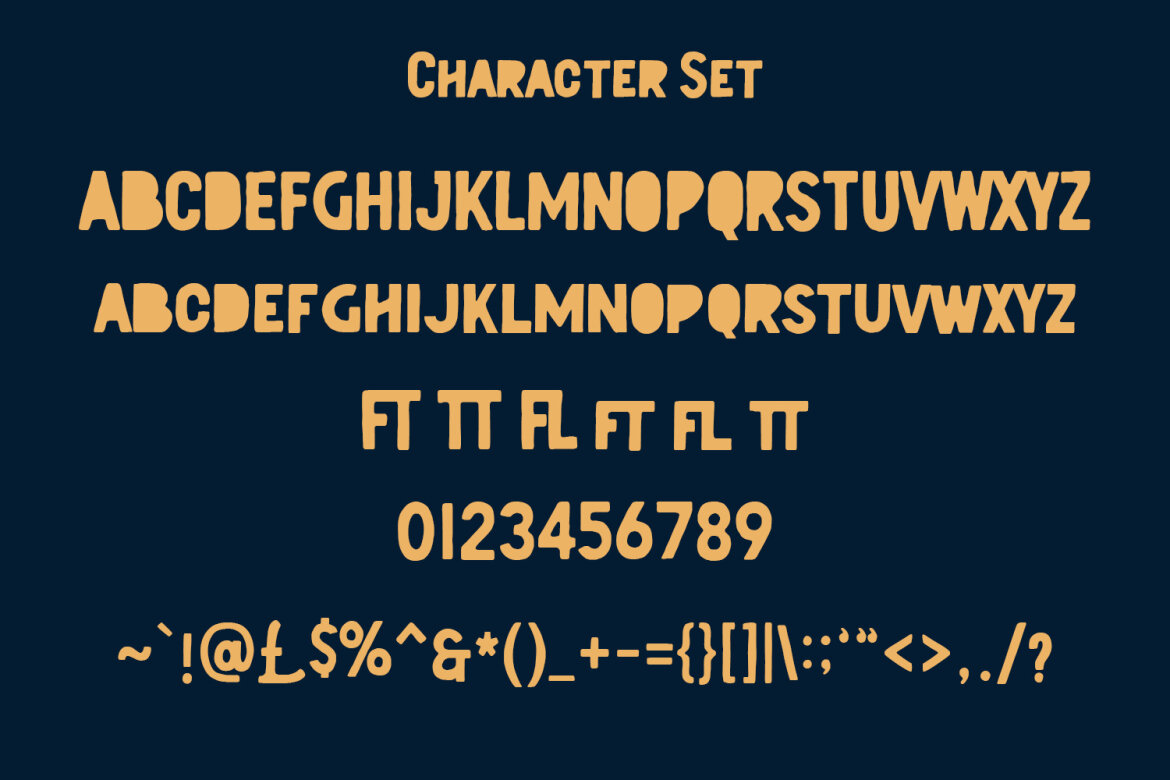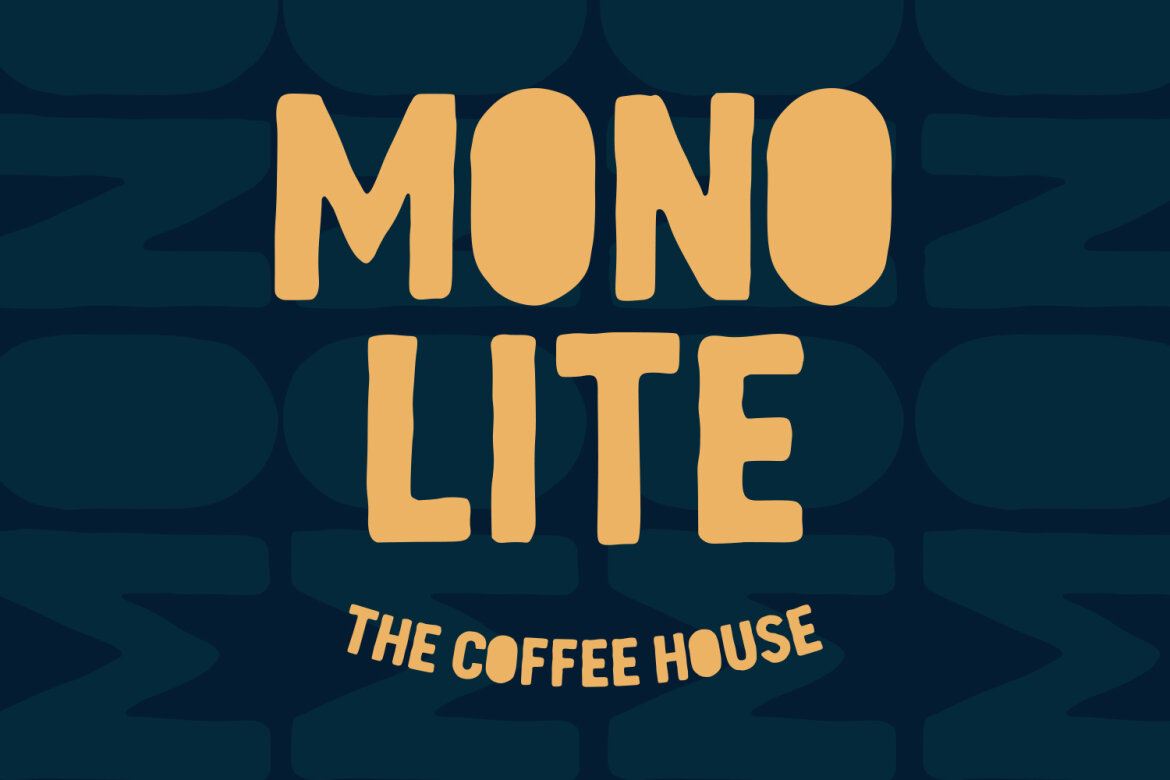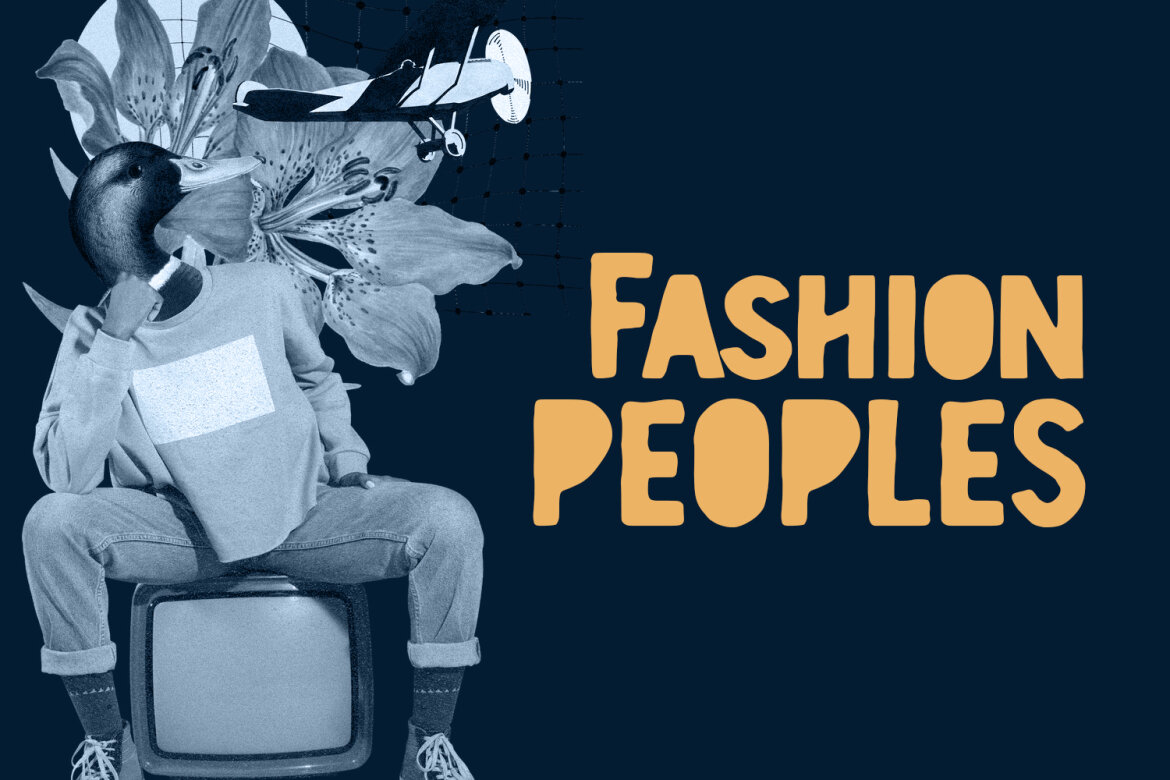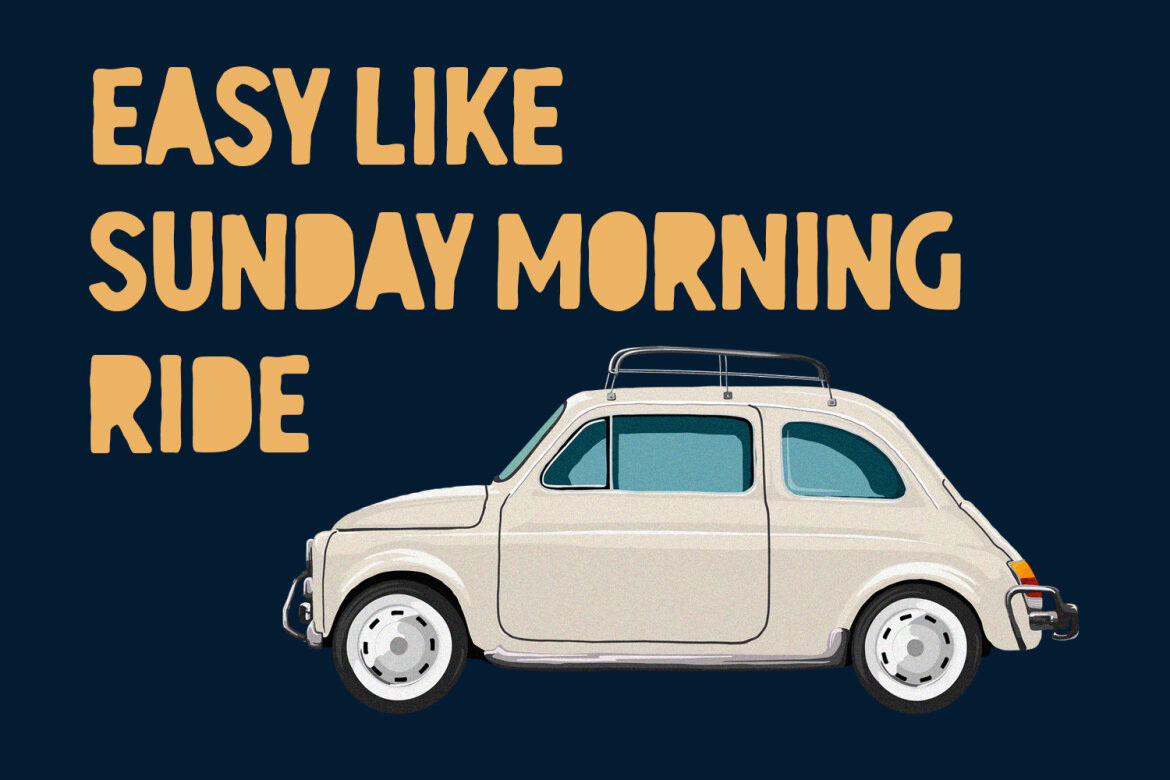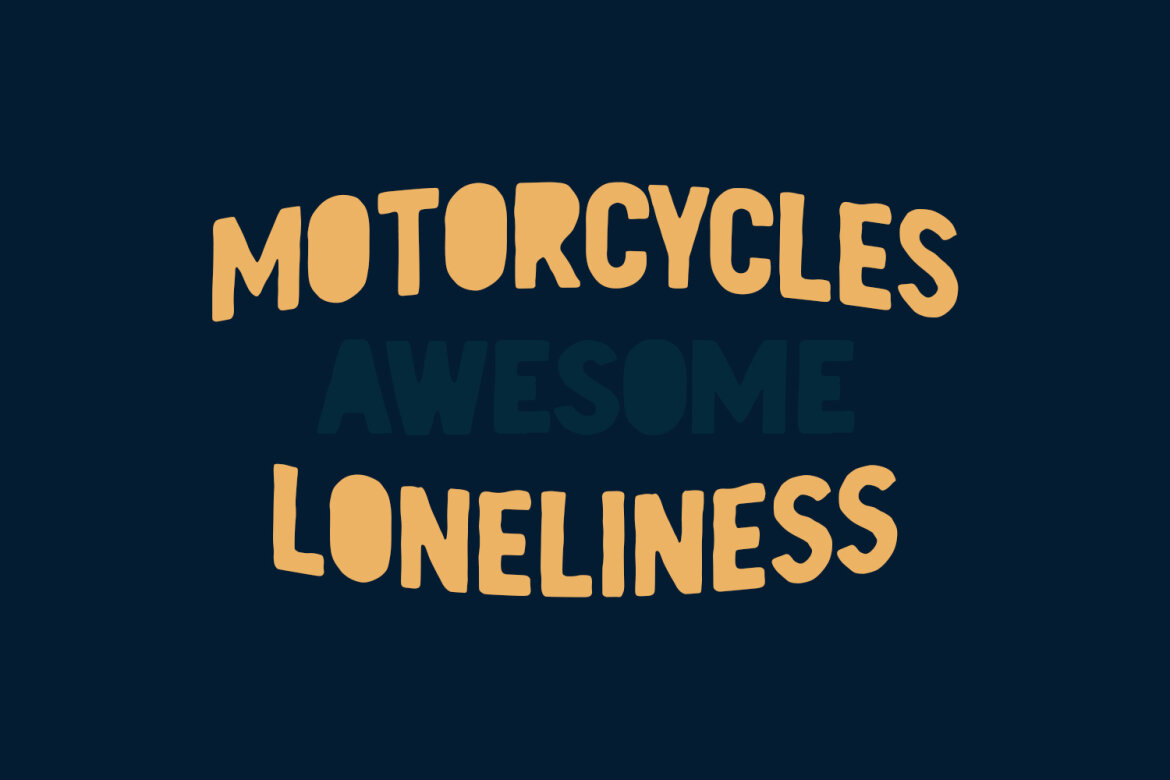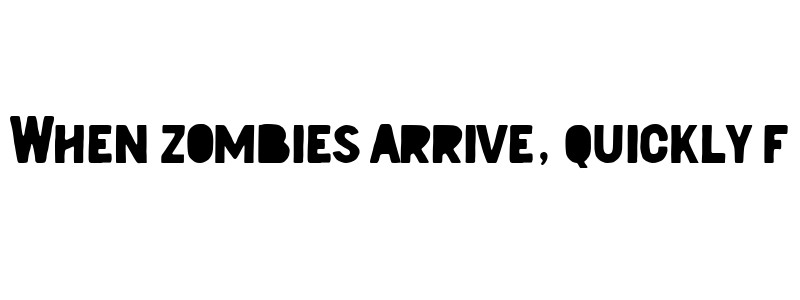
Berdey Handwritten FREE Font
Berdey
Berdey is a rough handwritten display font. With rough bold stroke, fun character with a bit of ligatures and alternates. To give you an extra creative work. Berdey font support multilingual more than 100+ language. This font is good for logo design, Social media, Movie Titles, Books Titles, a short text even a long text letter and good for your secondary text font with sans or serif. Make a stunning work with Berdey font.